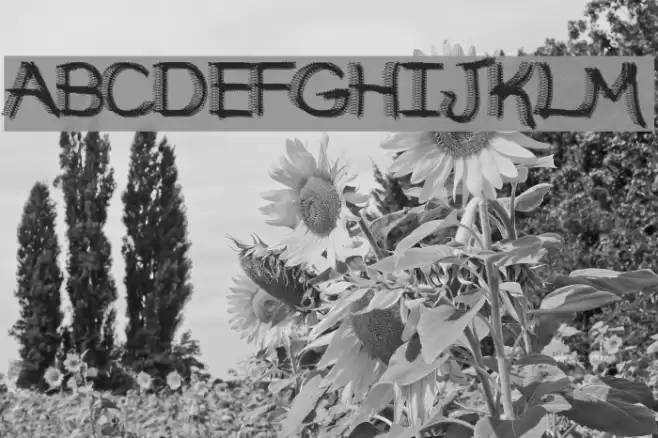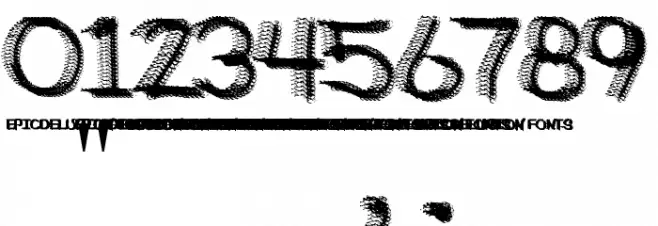
Broken Soul Font
Broken Soul Description
This font features a distressed and textured appearance, giving it a unique and edgy look. The letters are bold and have a rough, hand-drawn quality, with irregular edges and a slightly chaotic feel. The texture adds depth and character, making it stand out in any design. The uppercase and lowercase letters maintain a consistent style, while the numbers and special characters complement the overall aesthetic. This font is ideal for projects that require a bold statement or a grunge-inspired theme.
A bold, textured font with a distressed, hand-drawn appearance from Uncategorized fonts.
- Proposed Projects: Ideal for album covers, posters, urban-themed designs, and branding that requires a bold, edgy look.